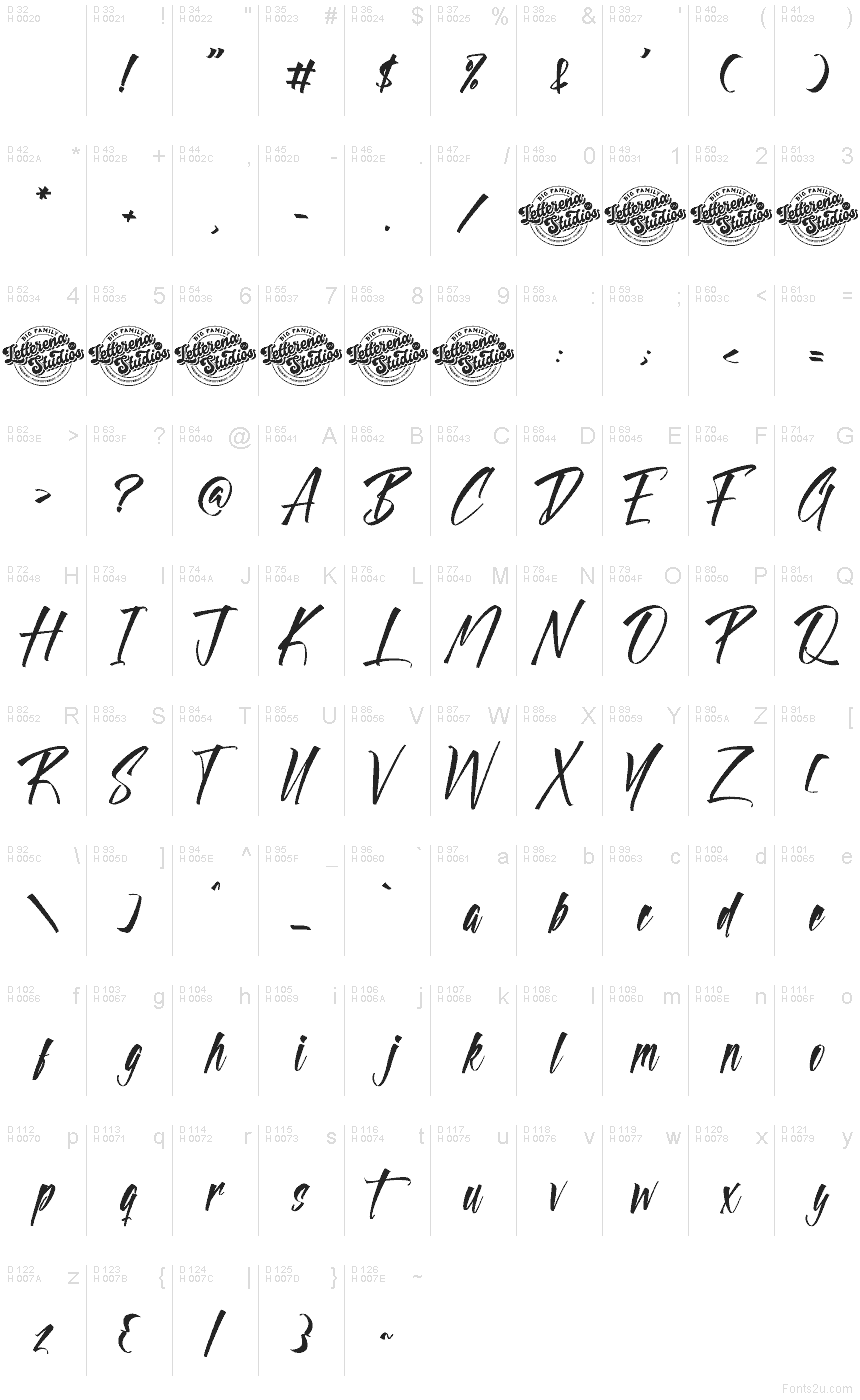
Gelaxttron Beyonkers DEMO VERSI
Gelaxttron Beyonkers font by Letterena Studios is a dynamic script with artistic flair and casual sophistication. It combines natural handwriting characteristics and classic calligraphy forms, bringing elegant serifs into each condensed character. Minimal on contrast but maximum on appearance, the font projects an expressive sophisticated feel that authentically resembles those spectacular works of expert calligraphers.
This free calligraphy font shines in captions, posters, headlines, website headers, social media content, advertisements, magazine names, movie covers and titles. Proper use will further enhance your newsletter designs or corporate branding projects by adding a unique personal touch that perfectly balances past inspirations with modern appeal for the ultimate visual experience.